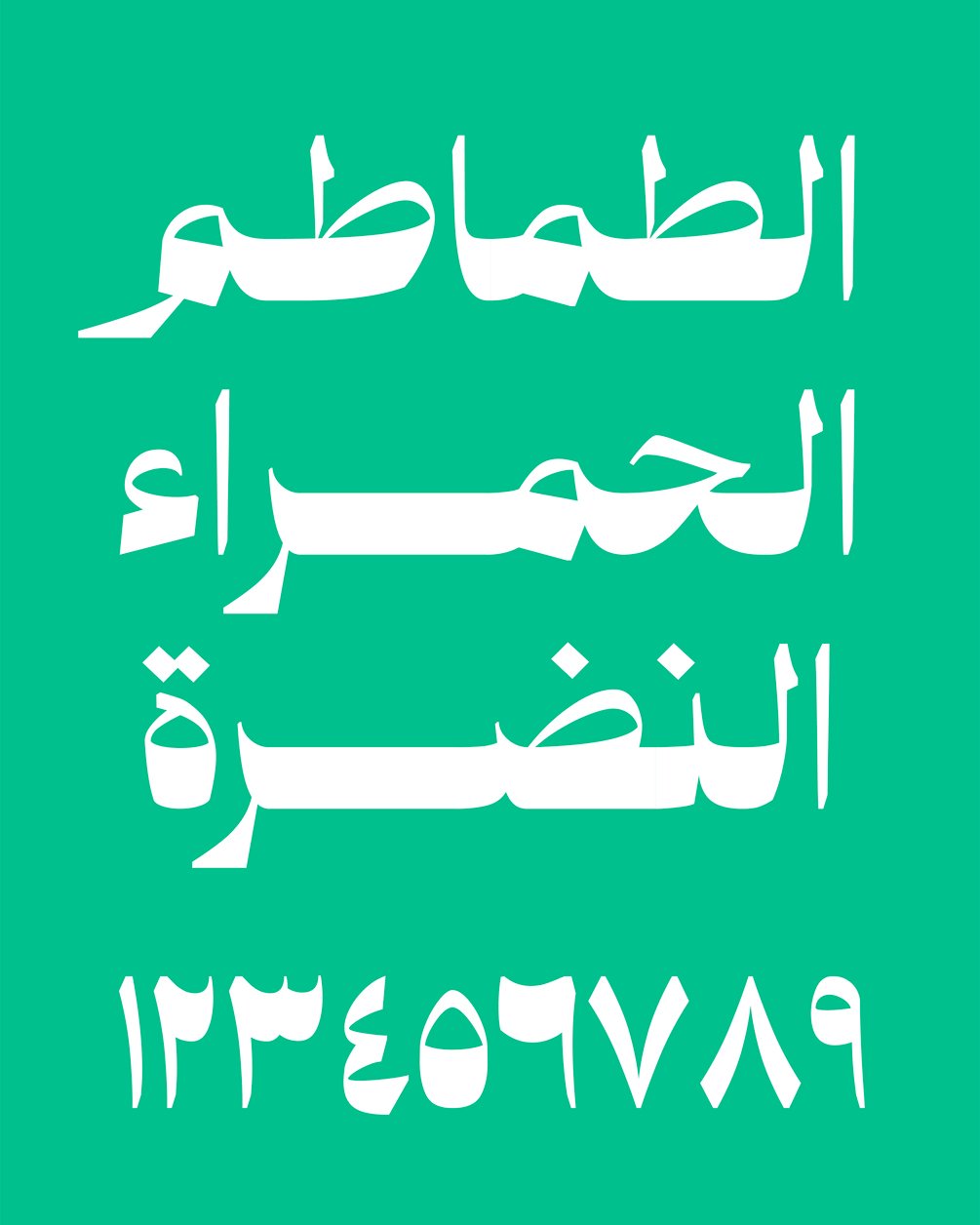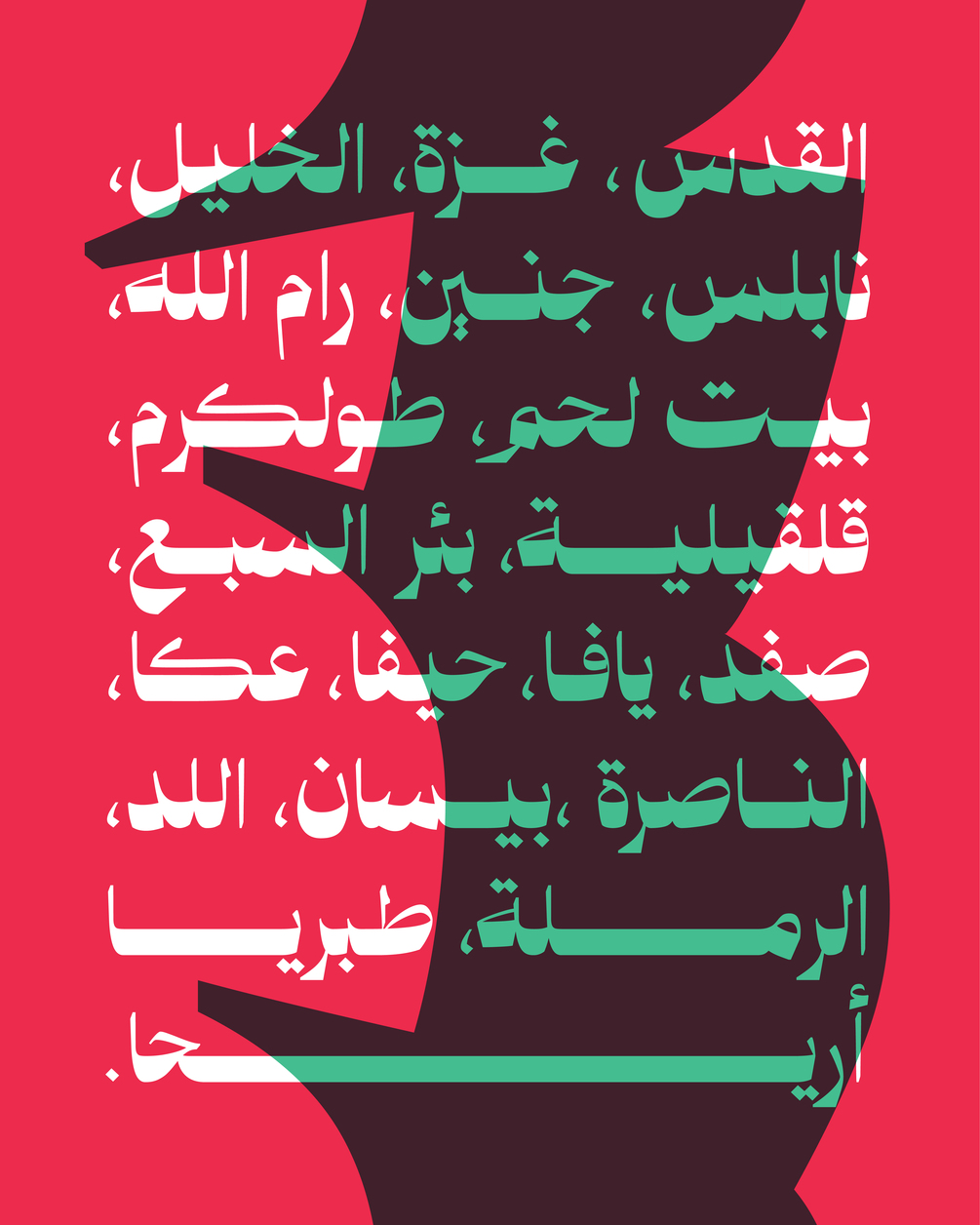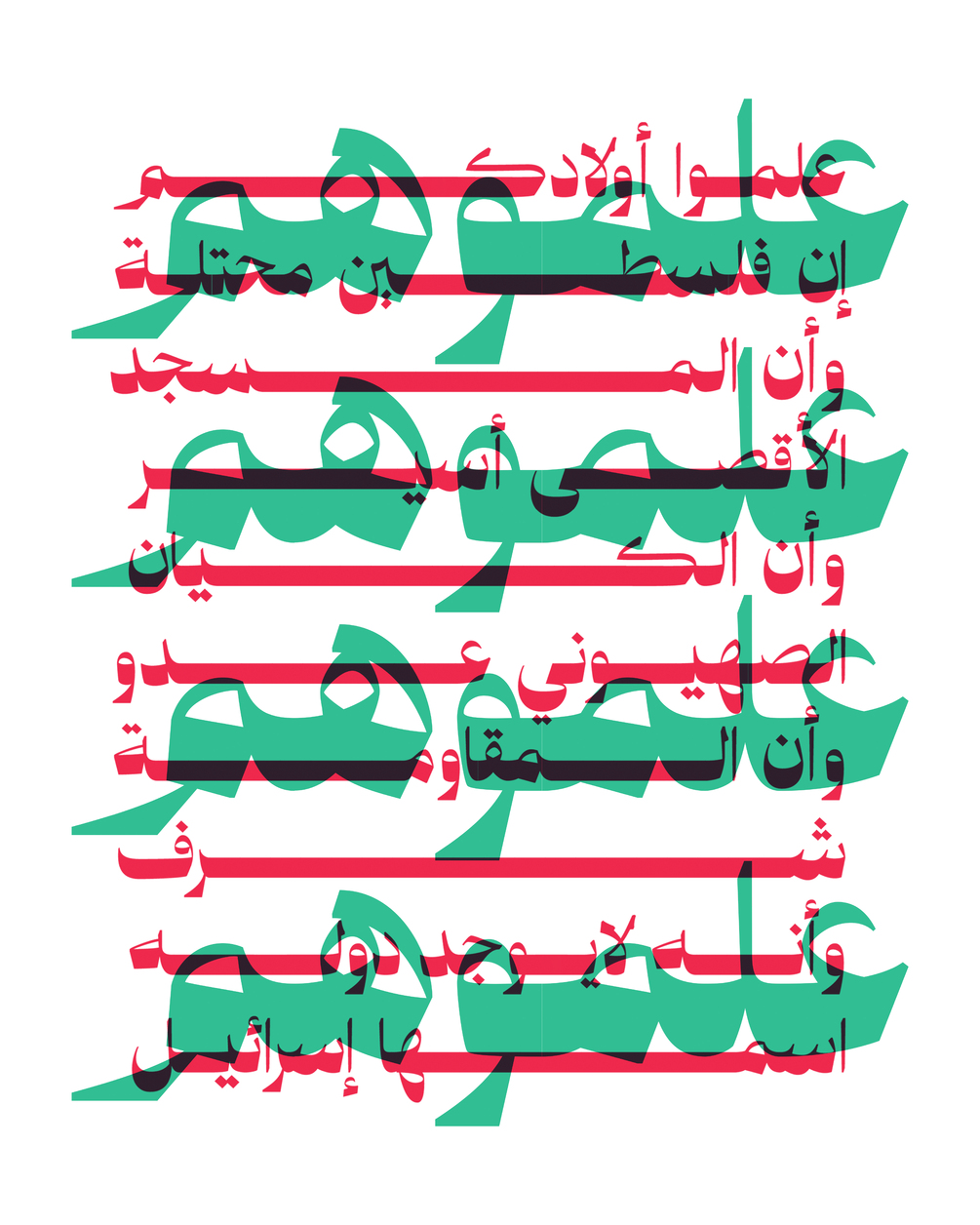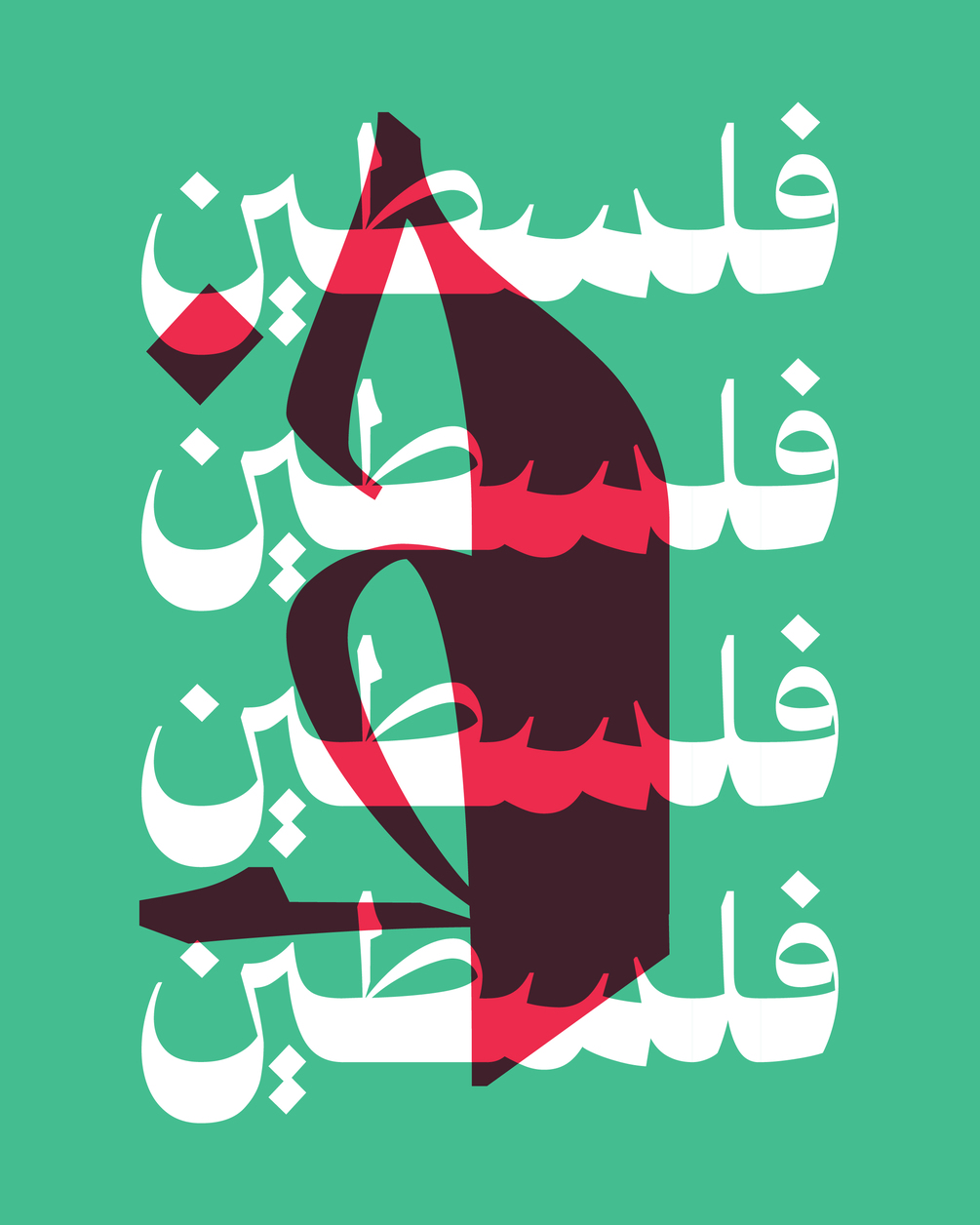
Palestine Typeface
Palestine typeface
Palestine is a Naskh Arabic typeface that combines a wide baseline with a flowing and expressive character.
Arabic typeface